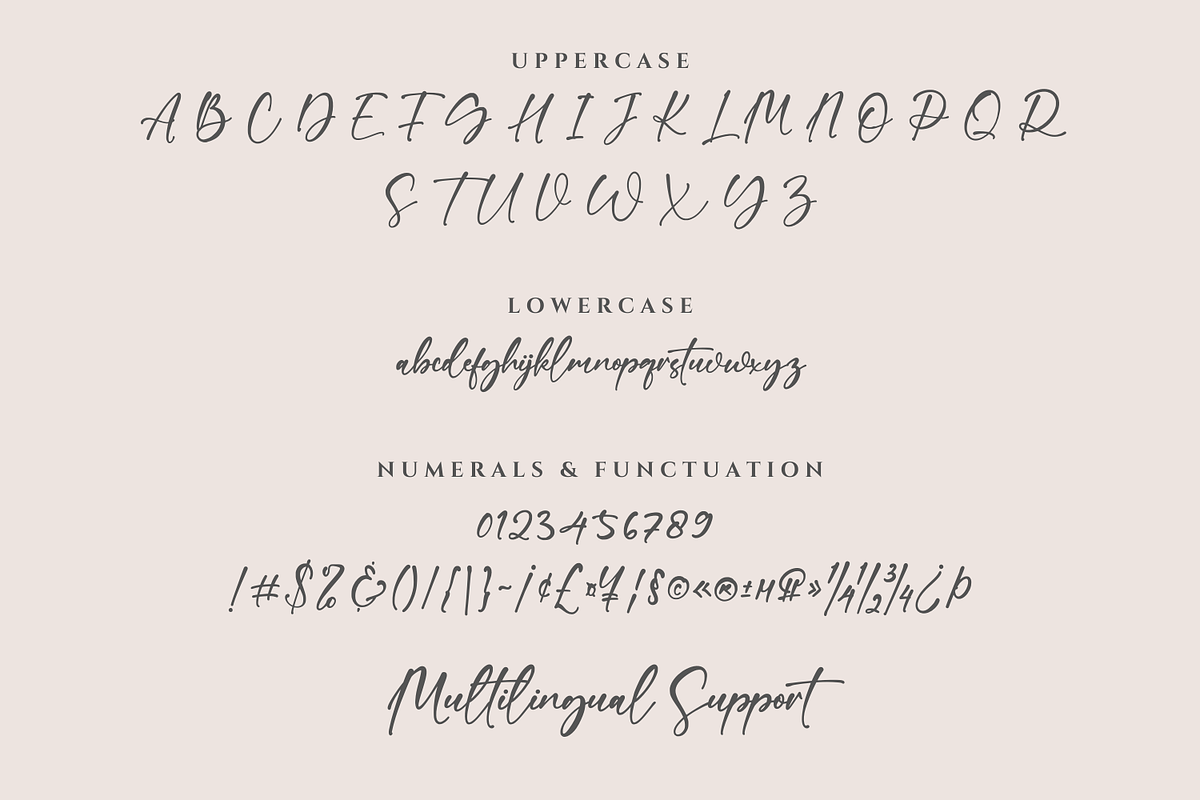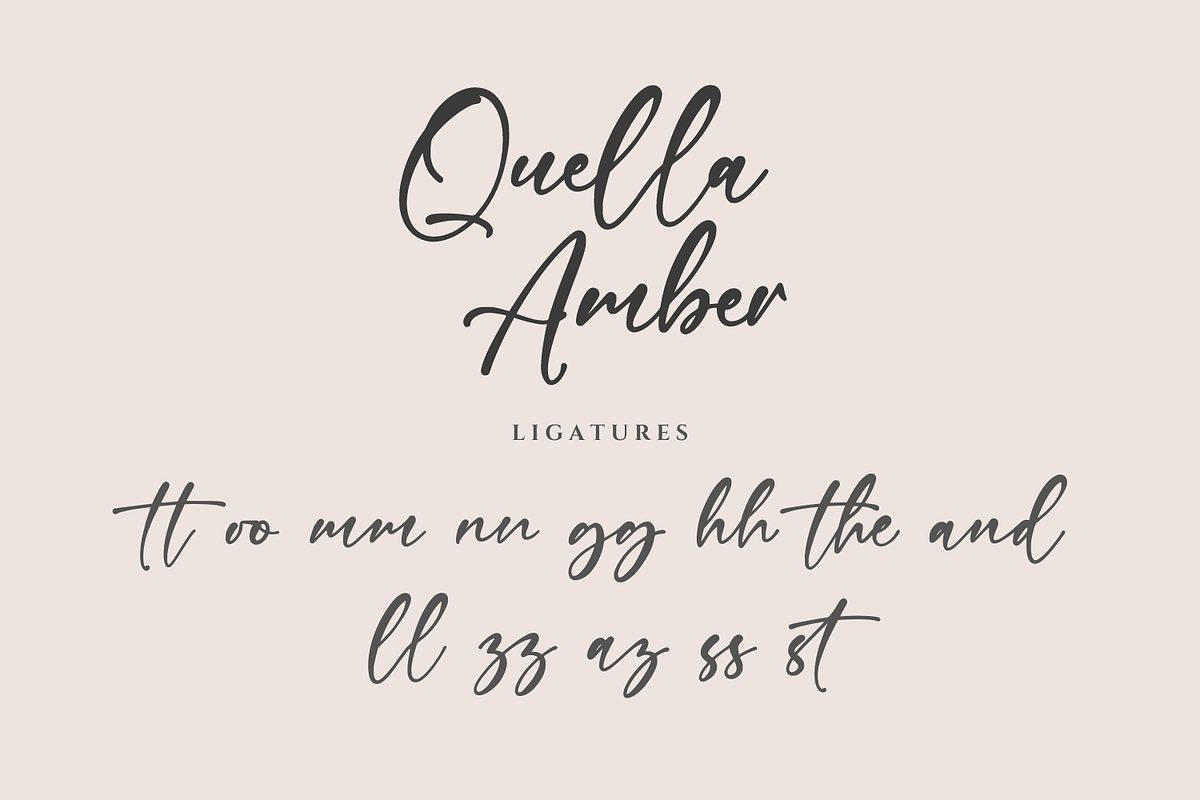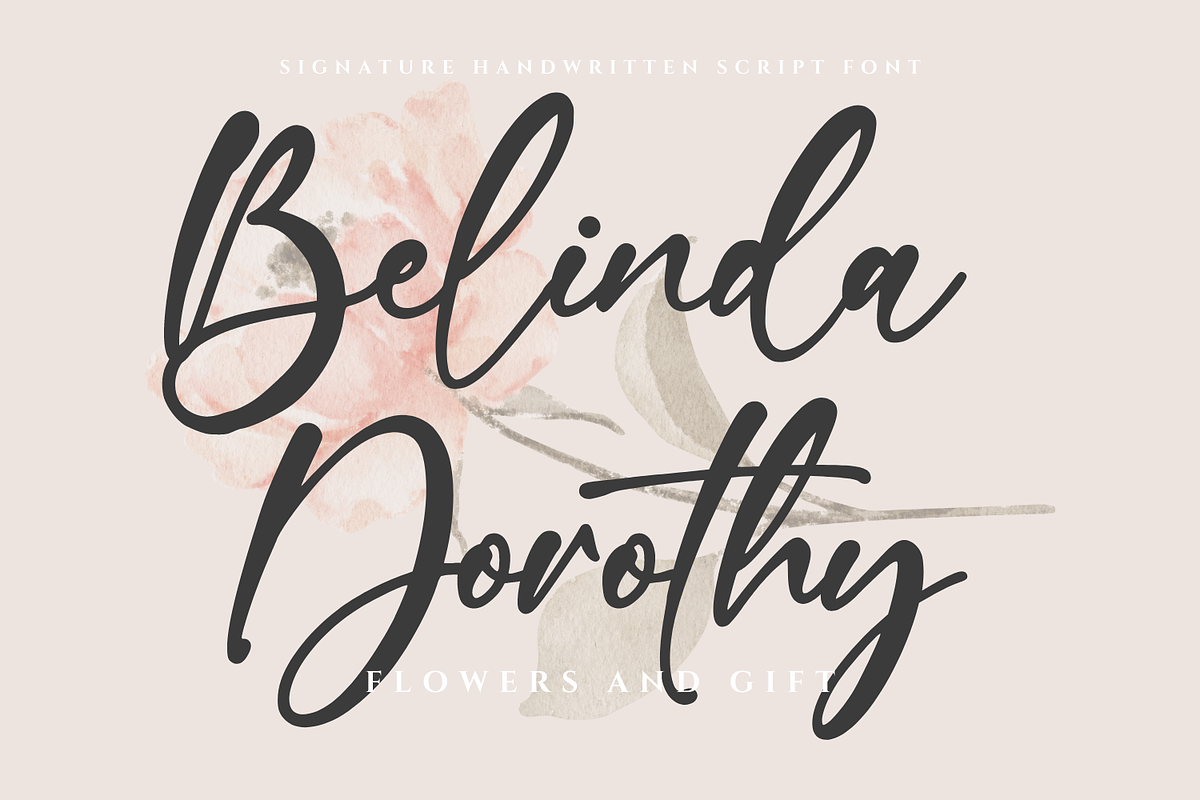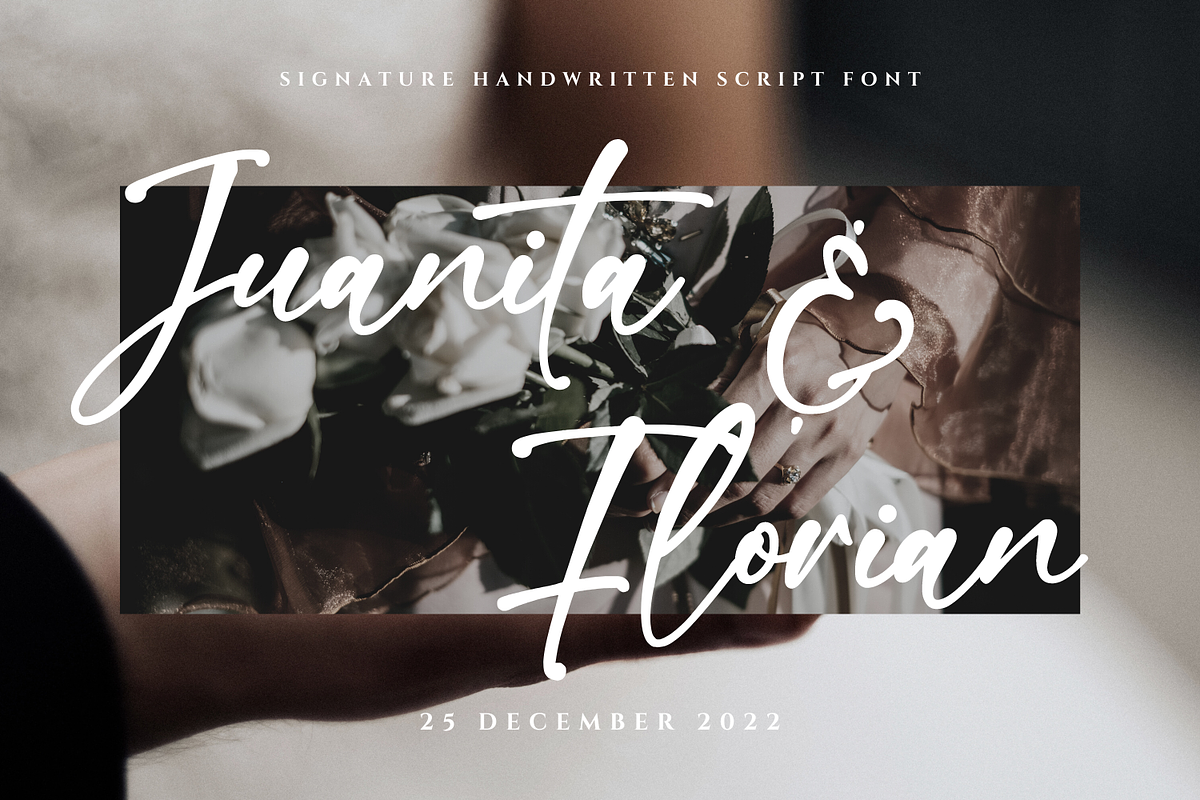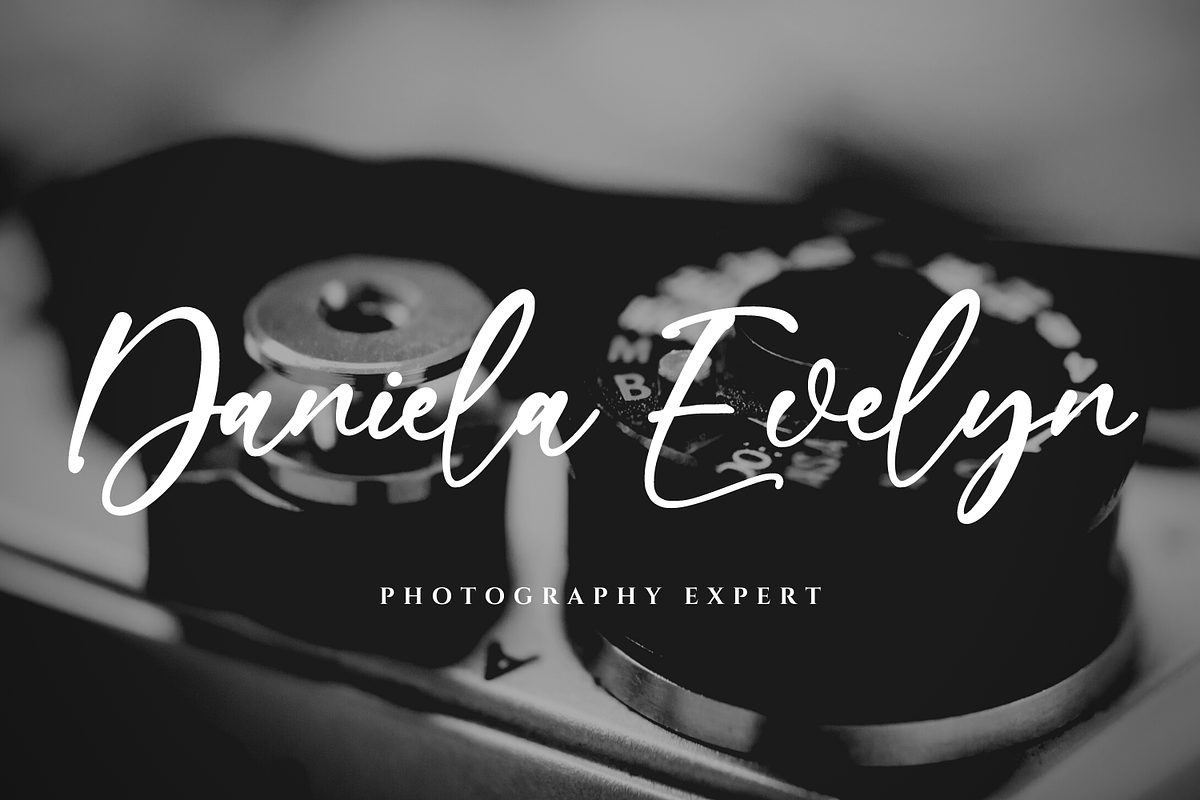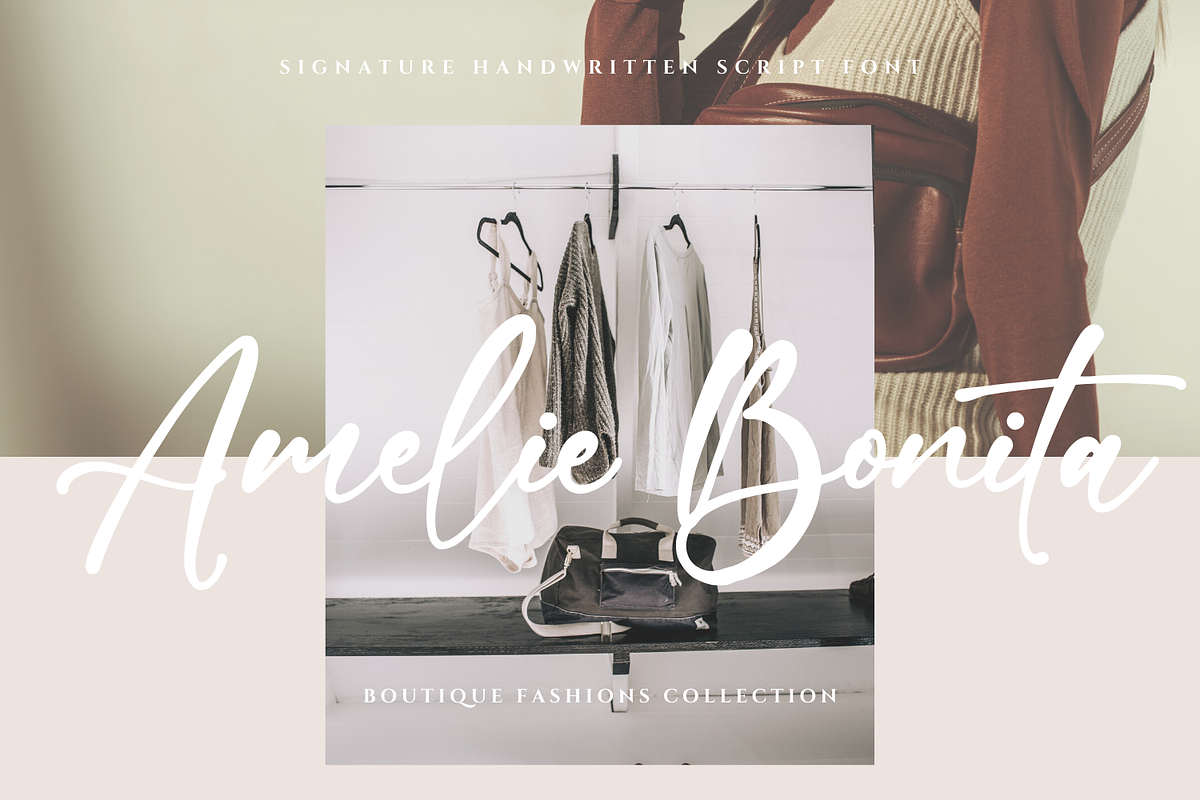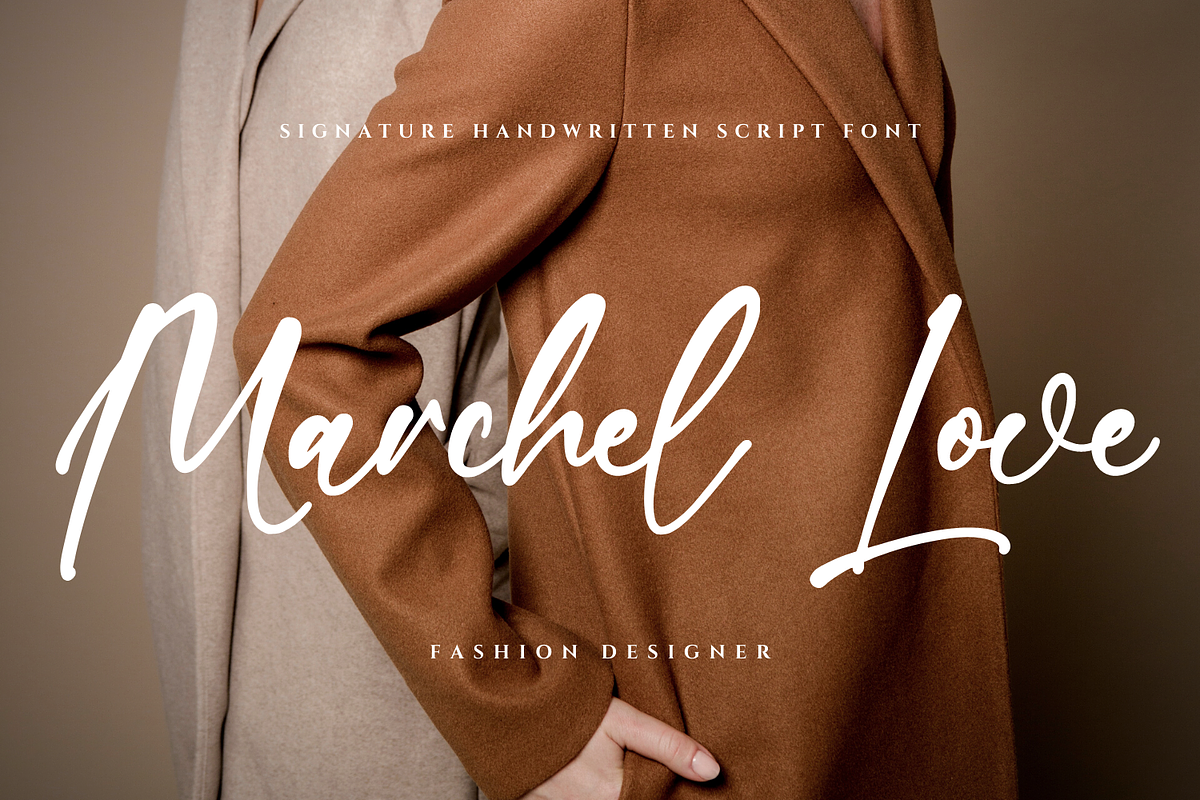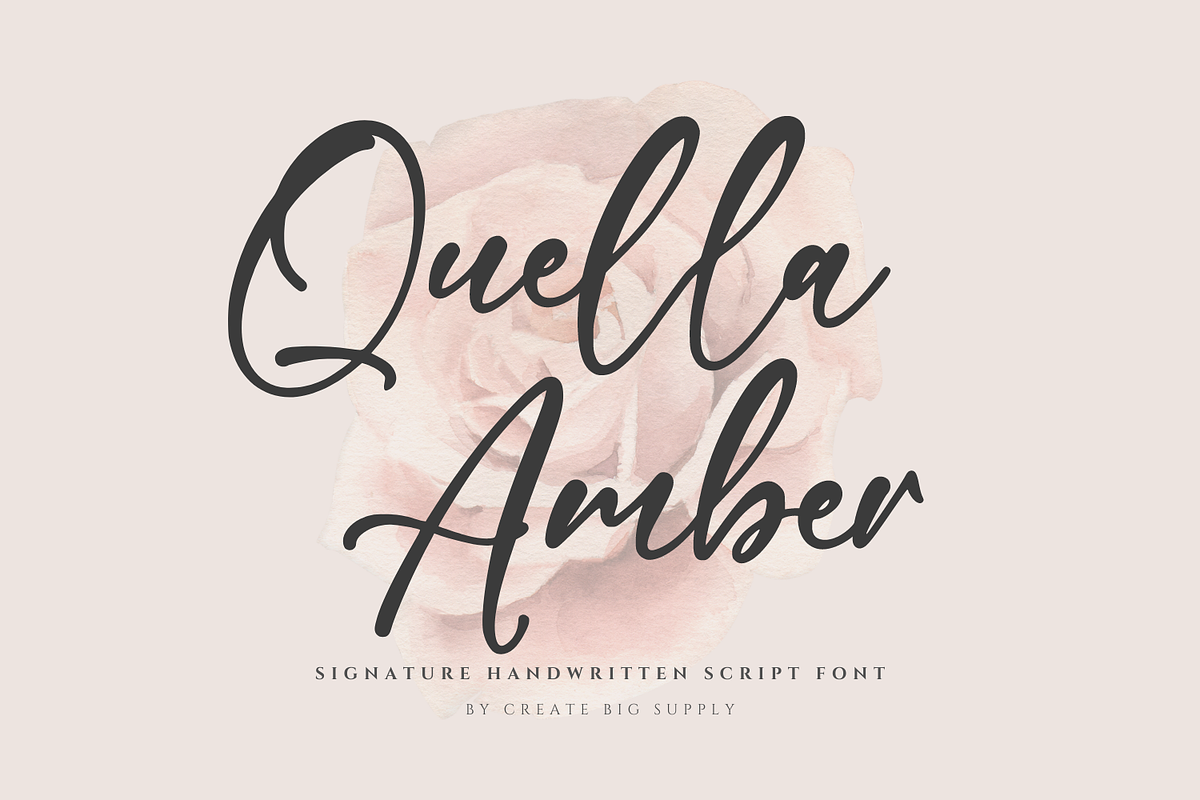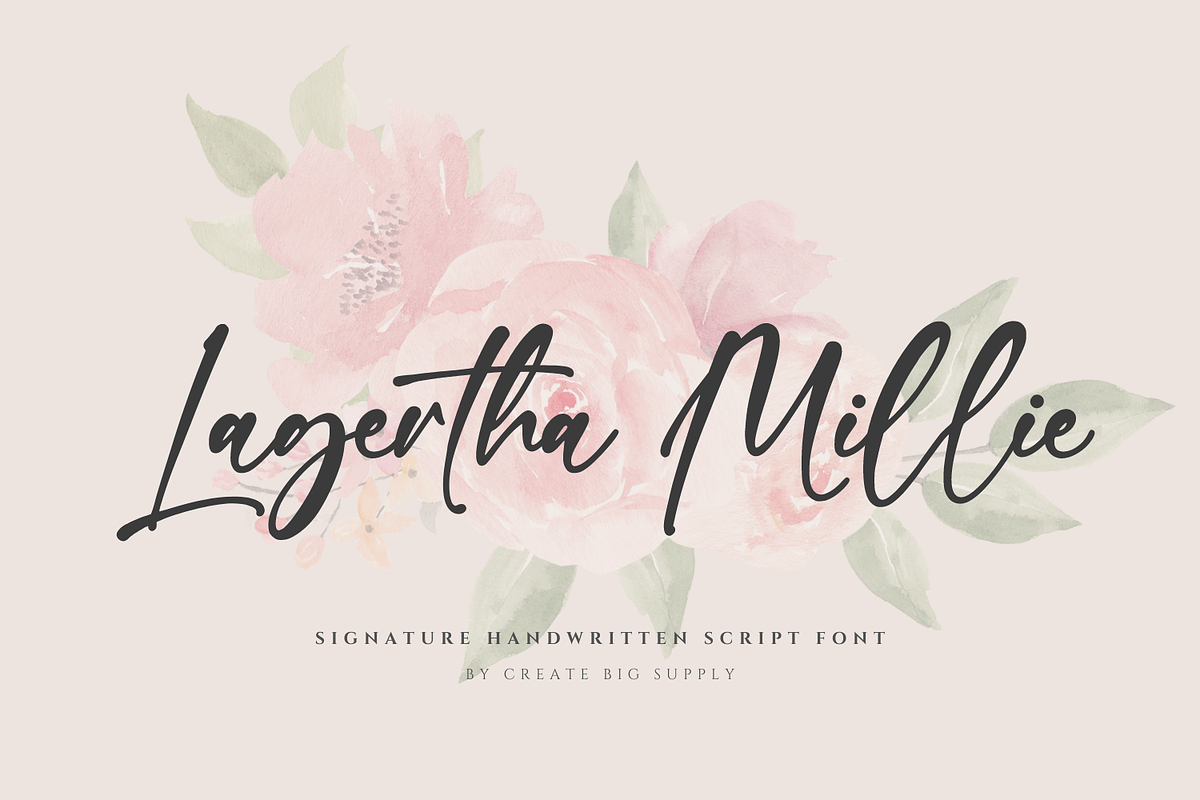
Quella Amber - Stylish Signature
Quella Amber is a stylish signature handwriting font that adds a touch of charm and elegance to your creative projects. With its unique and artistic letterforms, this font allows you to create personalized designs that stand out from the crowd. Whether you're working on logos, branding materials, invitations, or any other typographic project, Quella Amber brings a sense of sophistication and authenticity. It offers both uppercase and lowercase letters, as well as numbers and punctuations, giving you versatility in your compositions. The font is also multilingual, ensuring seamless communication across different languages and cultures. Additionally, it features PUA encoding, making it easy to access special characters and ligatures. Elevate your designs with Quella Amber and make a lasting impression.